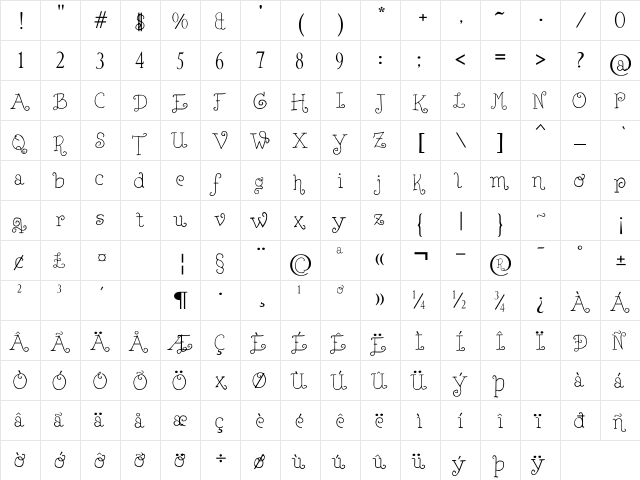
Lejana Regular
| Foundry | Juan Casco |
| Designer | (c) Juan Casco |
Design Context for Lejana Typeface
Lejana is a composed and adaptable typeface that performs quietly and consistently across a wide range of design contexts.